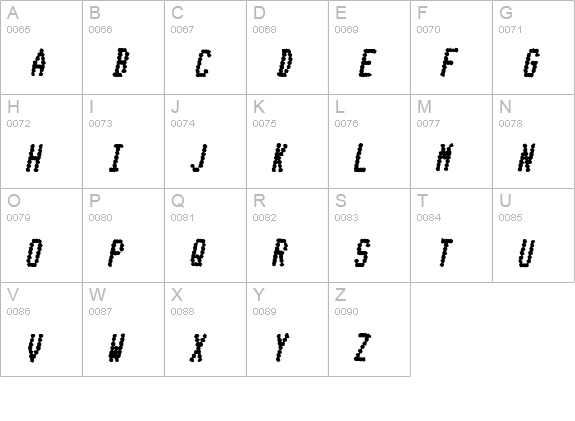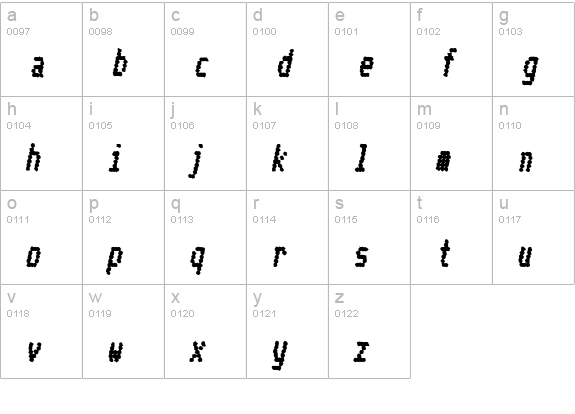
Telidon Ink CdHv Italic Font Details
Telidon Ink CdHv Italic is a distinctive, italic variant in the Telidon typeface family \xE2\x80\x94 well suited to design and typography projects.
Telidon Ink CdHv Italic font is a stylish and modern typeface that exudes elegance and sophistication. With its unique design and sleek curves, this font is perfect for adding a touch of class to any project. The italic style adds a sense of movement and dynamism, making it ideal for titles, headlines, and other prominent text. What sets Telidon Ink CdHv Italic font apart is that it is available for free download at FontsMarket.com. This means that you can easily access this high-quality font without any cost, making it a great choice for designers, creatives, and anyone looking to enhance their projects with a premium typeface. Whether you're working on a website, branding materials, invitations, or any other design project, Telidon Ink CdHv Italic font is sure to make a lasting impression. Its versatility and eye-catching appeal will elevate your work and help you stand out from the crowd. Download this font today and take your designs to the next level!